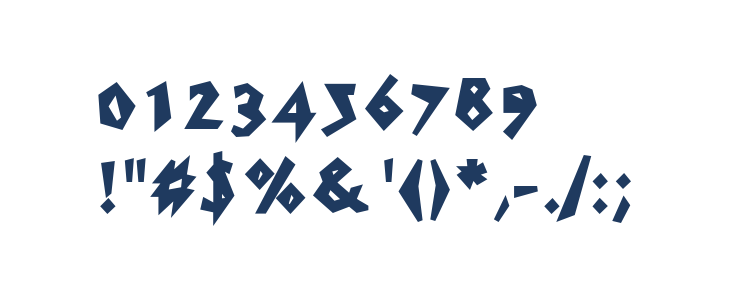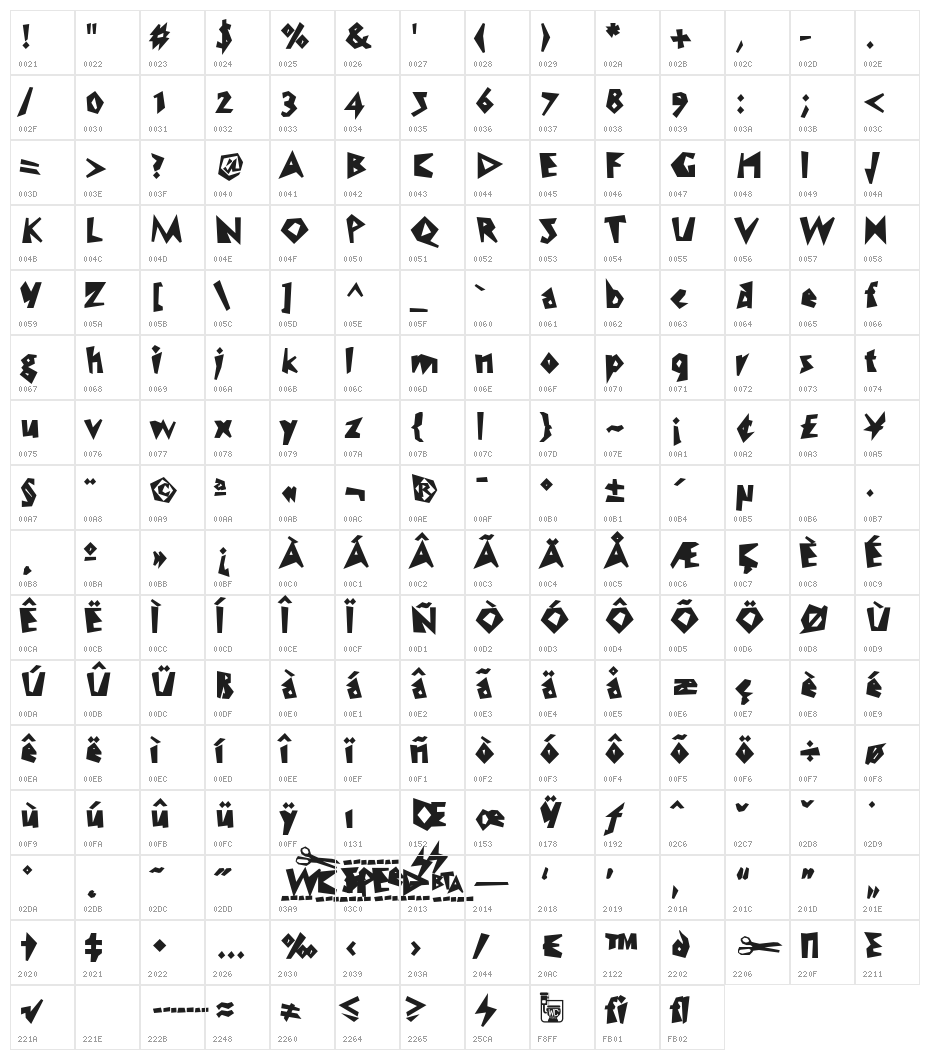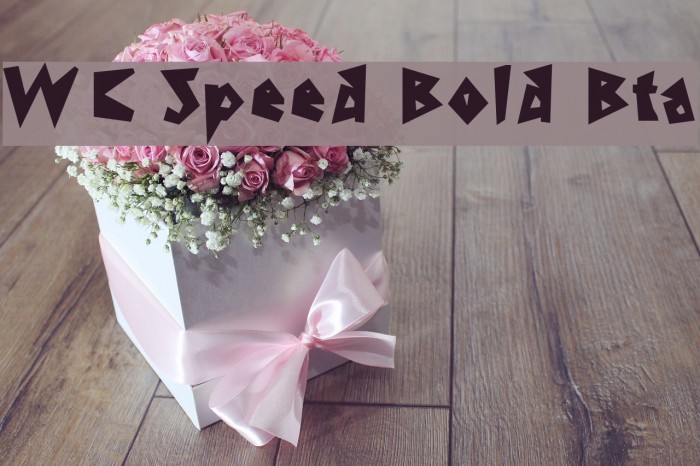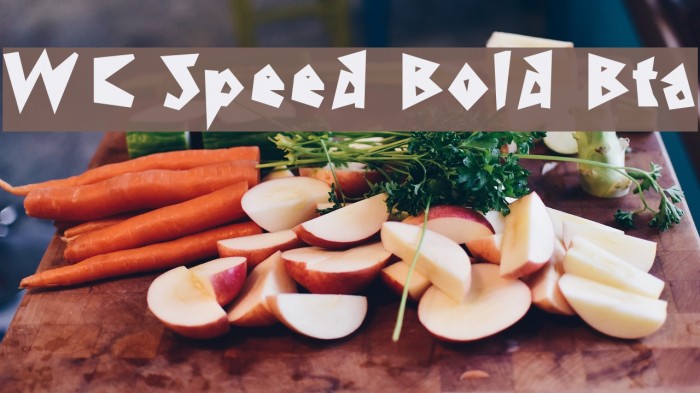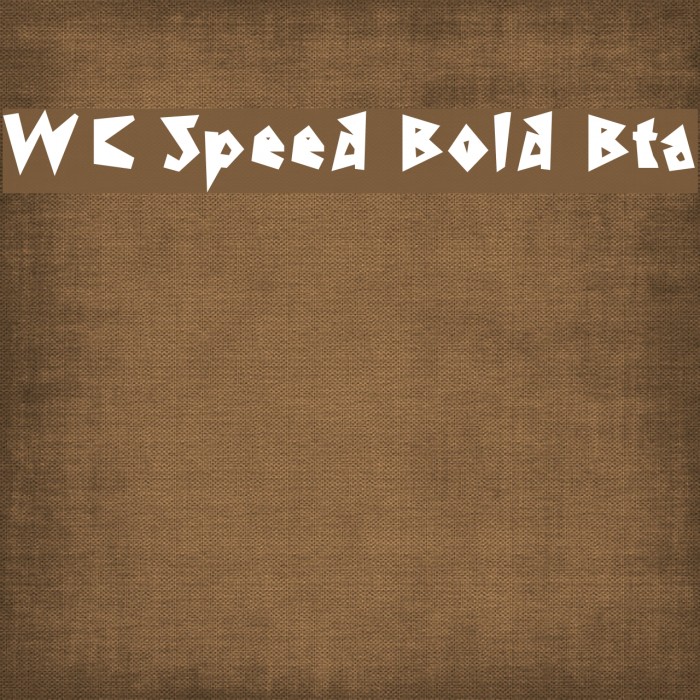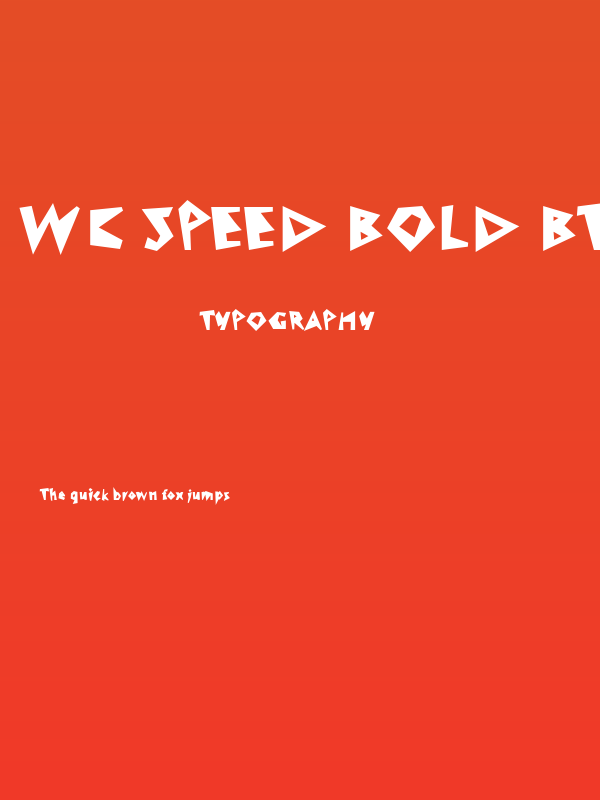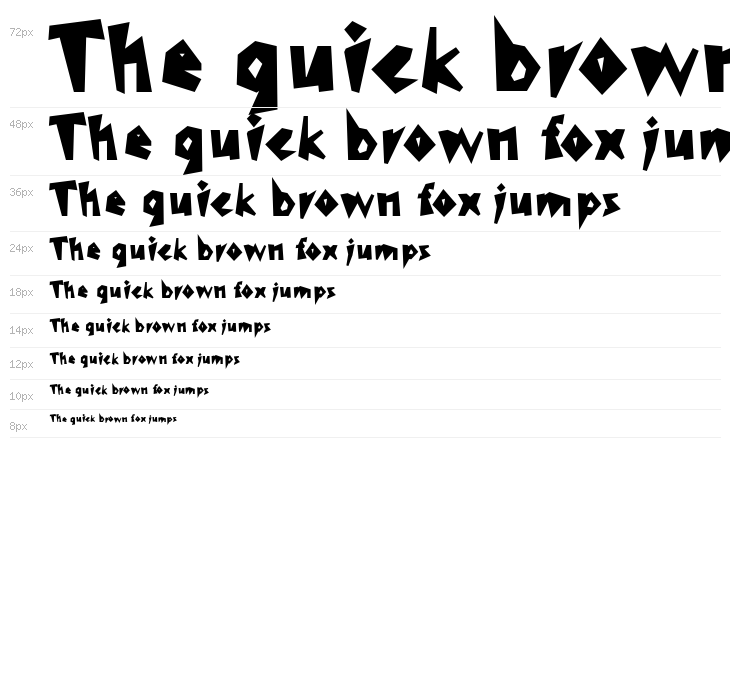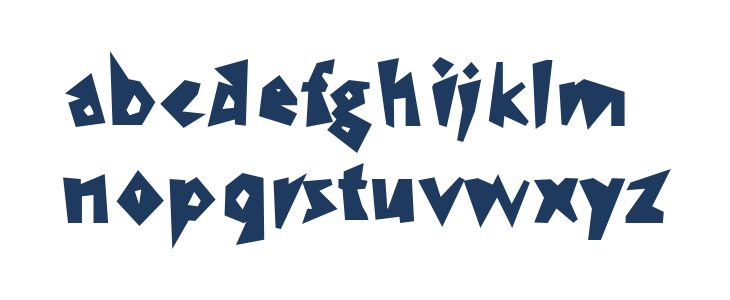
WC Speed Bold Bta Font
WC Speed Bold Bta Description
This font features a bold and dynamic design with sharp, angular edges that create a sense of speed and movement. The uppercase and lowercase letters maintain a consistent style, characterized by their jagged, geometric forms. Numbers and special characters follow the same aesthetic, ensuring uniformity across all glyphs. The font's aggressive and energetic appearance makes it stand out, ideal for projects that require a strong visual impact. Its unique style is reminiscent of graffiti or urban art, adding a modern and edgy feel to any design.
| Proposed Projects | Perfect for sports branding, music album covers, streetwear designs, and event posters. |